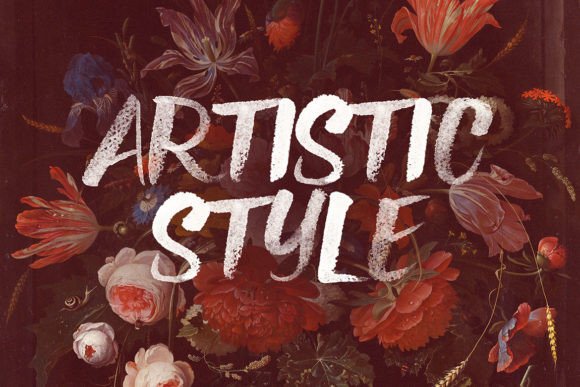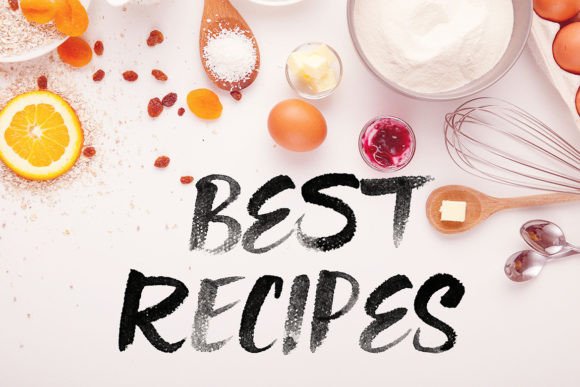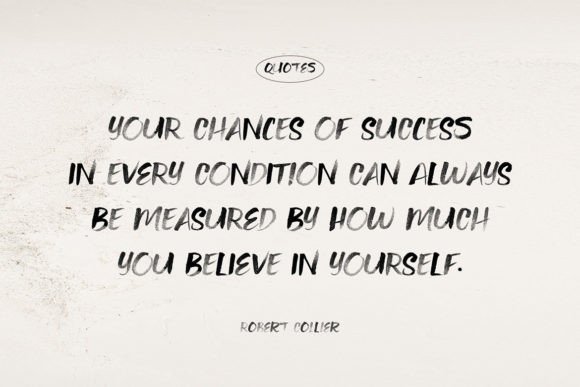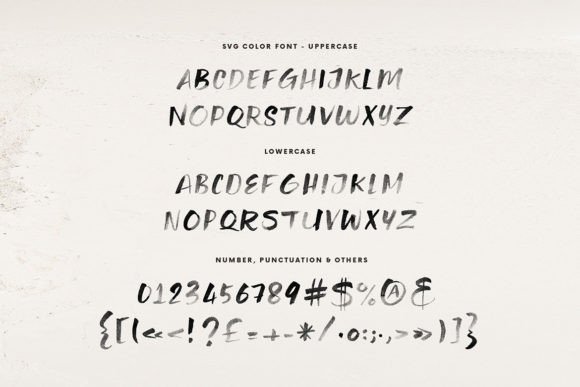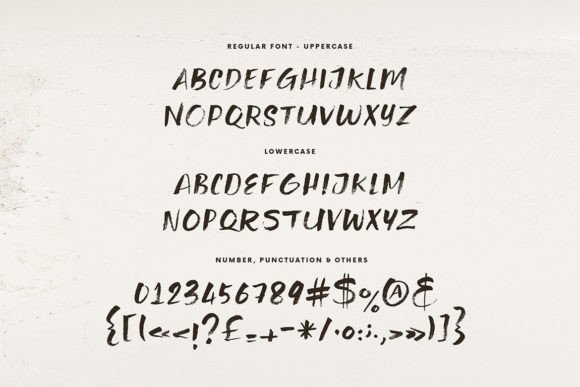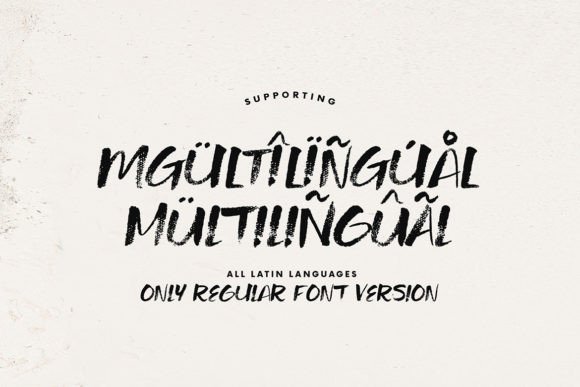
Unleashing the Power of Angel Font
There’s nothing quite like the thrill of discovering a new font that sparks creativity and sets your imagination ablaze. For designers, the quest for the perfect font is a never-ending journey. And when you stumble upon a font that embodies the perfect blend of power, elegance, and sophistication, it’s a moment to cherish. This is exactly what happens when you meet the Angel Font – a modern bold brush script font that’s about to revolutionize your design game.
Angel Font is designed to make a statement. With its strong, dramatic strokes and cursive letterforms, it’s the perfect choice for branding, packaging, and editorial design that demands a contemporary and bold aesthetic. Whether you’re a seasoned designer or just starting out, Angel Font is an invaluable asset in your toolkit. Its unique details and flair will elevate your designs to new heights and leave a lasting impression on your audience.
Angel Font Key Features
- Font Family: Angel Font is a beautiful, elegant script font designed to add a touch of sophistication to any design.
- Unique Characteristics: Angel Font features intricate, hand-drawn letterforms with a flowing, cursive style, making it perfect for creating elegant and romantic designs.
Angel Font Review
Overall, I’d say the Angel Font has some nice qualities, but it falls short in other areas. ✨
- Beautiful and elegant design: The font has a soothing, ethereal quality that’s perfect for creating a peaceful atmosphere.
- Highly legible: Despite its cursive nature, the font is easy to read, even at smaller font sizes.
- Works well for headings: The font is particularly effective for headings and titles, adding a touch of sophistication to your design.
- ⚠️ Limited character set: The font’s character set is relatively small, which can be a problem for languages that require a wide range of characters.
- ⚠️ Not ideal for body text: While the font is legible, it can be difficult to read in large blocks of text, making it less suitable for body text.
- ⚠️ May not work well for digital displays: The font’s aesthetic is heavily reliant on its organic, hand-drawn quality, which can get lost on digital displays.
Overall, I’d recommend the Angel Font for projects that require a touch of elegance and sophistication, but be mindful of its limitations and use it sparingly.
Tips for Getting the Most Out of Angel Font
Use Angel Font to add a touch of elegance and sophistication to your designs. Experiment with different font sizes, colors, and styles to create a unique look.
- Wedding and event signage